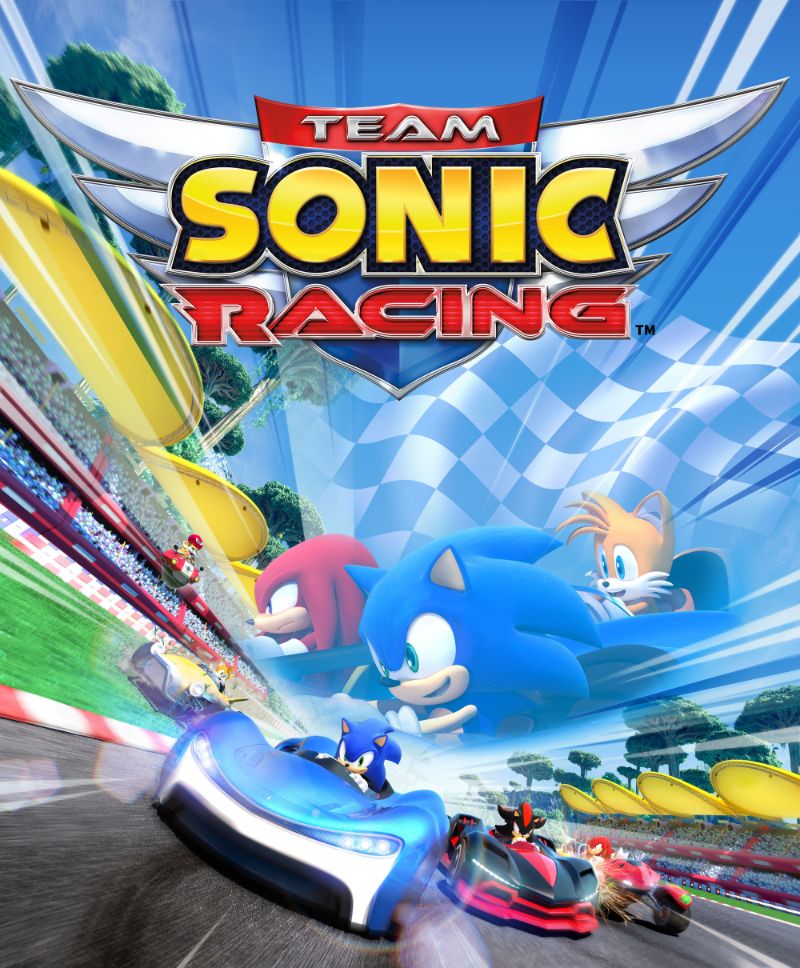
Team Sonic Racing Font
Fonts in UseTeam Sonic Racing is a kart racing game developed by Sumo Digital and published by Sega. The game features cooperative gameplay where players work together as a team to win races and overcome challenges.
The title includes a font called Nise Sega Sonic, designed by ActSelect, which is prominent in the word “SONIC”. Additionally, the rest of the text uses the Ethnocentric font created by Typodermic Fonts, except for the prickly letter “R”, which can be obtained by typing the % symbol in the Nise Sega Sonic font. You can easily download both of these fonts at no cost here at FontGet.